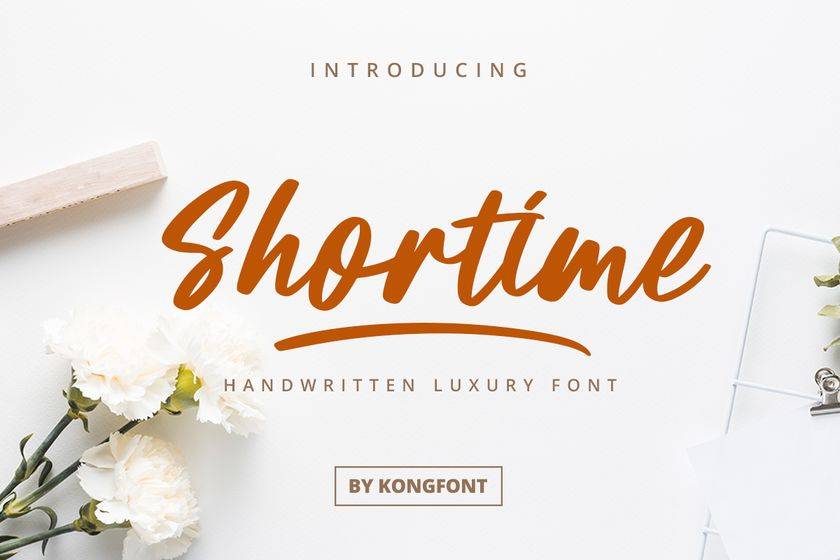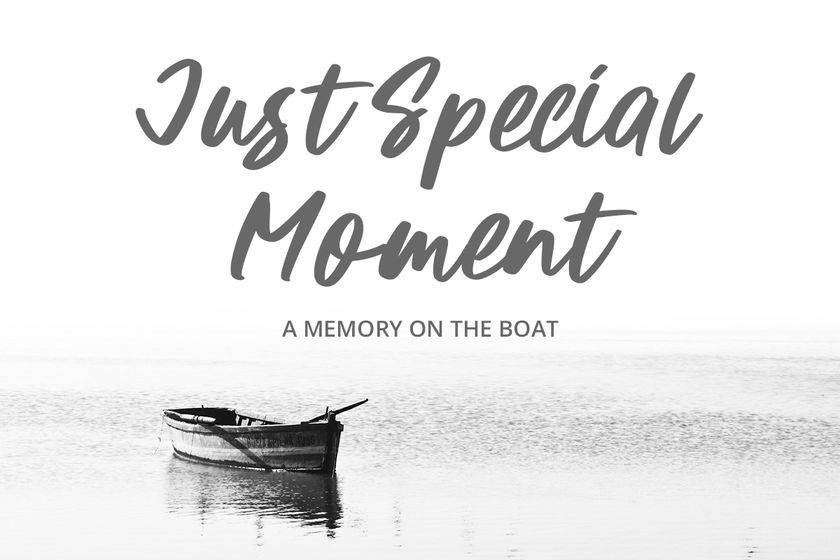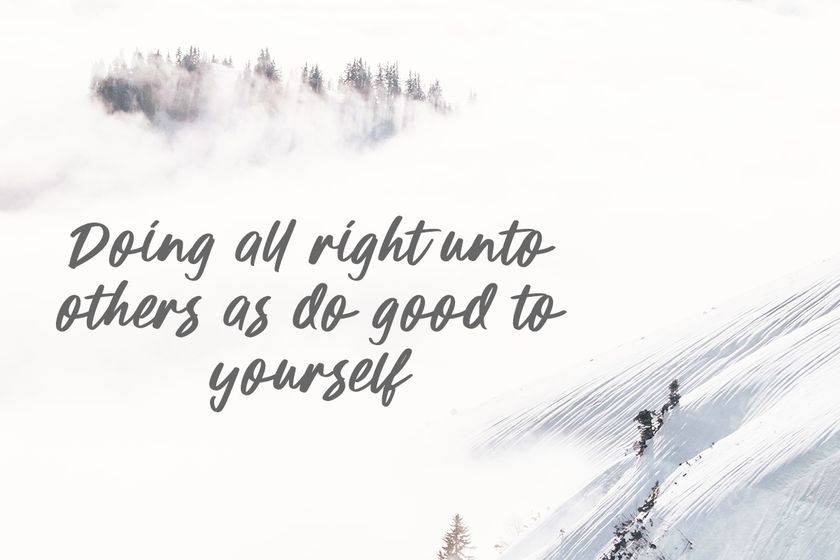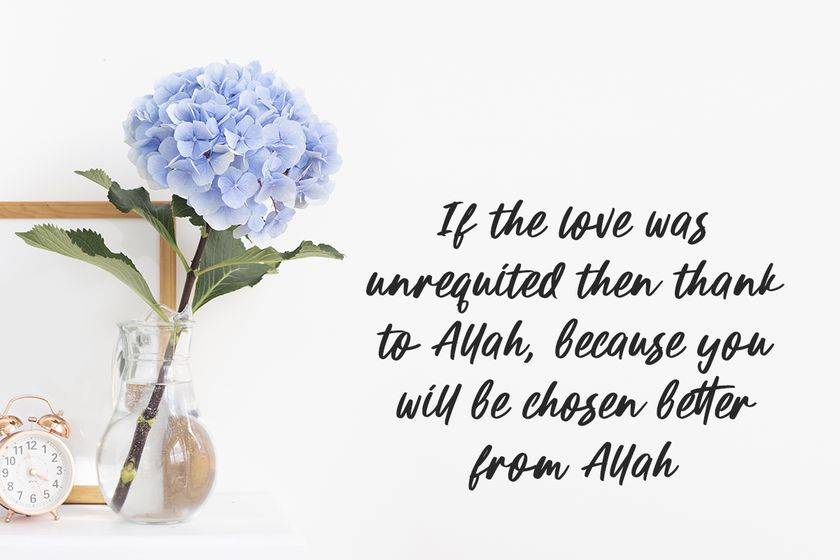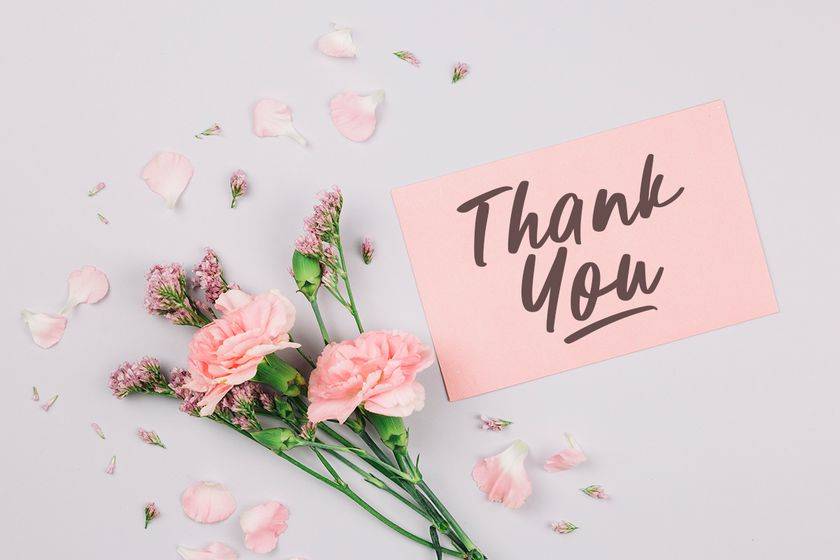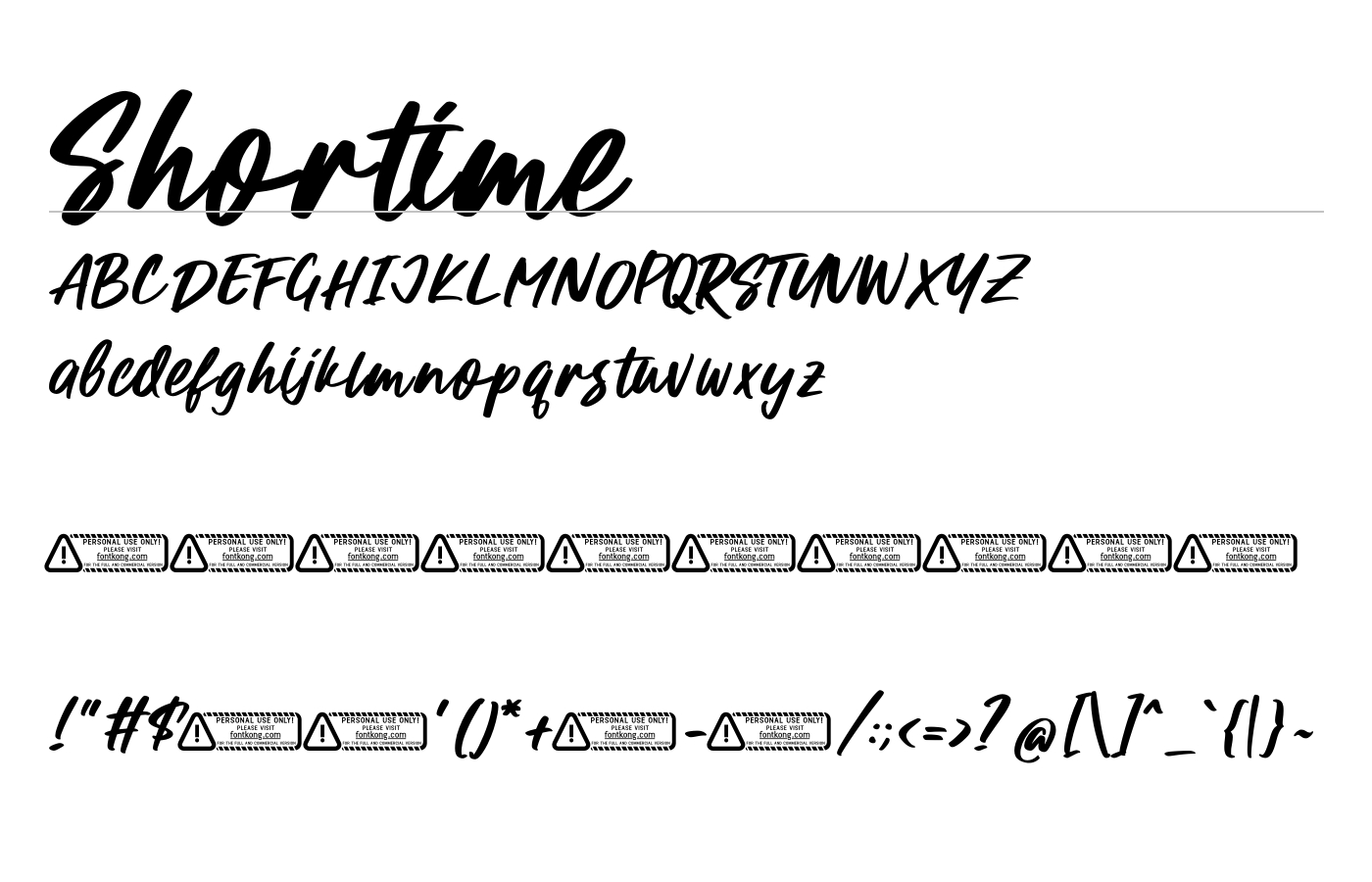
Shortime is a lively script font with a bold, brush-like texture that conveys energy and a personal, handwritten feel. Its casual yet confident strokes make it ideal for creative projects, branding, and headlines where a friendly, approachable vibe is desired. This font works well in contexts that benefit from an informal yet stylish touch, such as invitations, social media graphics, and packaging.
| Font family | Shortime Font |